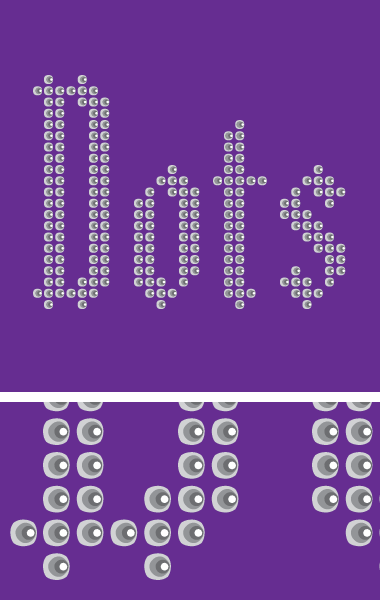
• Clone of Luthien Dot 02. This is the last one of the Dot series. The smaller dots suit small letter sizes.
This quite ethereal in its delicacy,
Ethereal, the perfect description
@p2pnut, @Aeolien: Thank you for your comments and generous ratings. Yes, ethereal is a good description. The dots are so small that the font is hardly visible in the preview window. However, after some experimentation I found the small dot version to be useful for small letters sizes: the dots don't merge or get too close to each other. I also have an idea for another application of the different dot size versions which I will illustrate with a demo picture soon.
This is a demo showing Luthien Dot 01-04 layered on top of each other. It was an interesting experiment, yet I expected more impressive results. Tell me what you think.
This beautiful and delicate sample looks like pearls.
I suppose stronger colours would give a more noticeable effect
It looks like a op-art font layered. The dots either go in or out.
Another interpretation of this wonderful series: